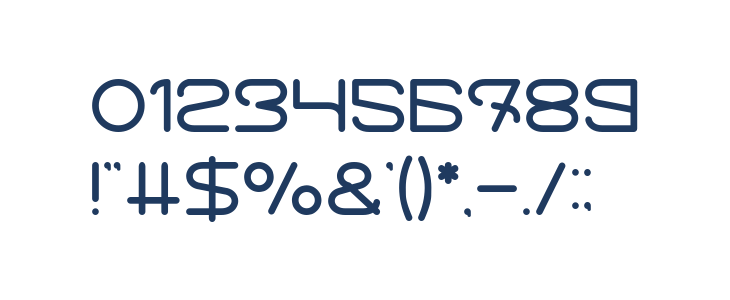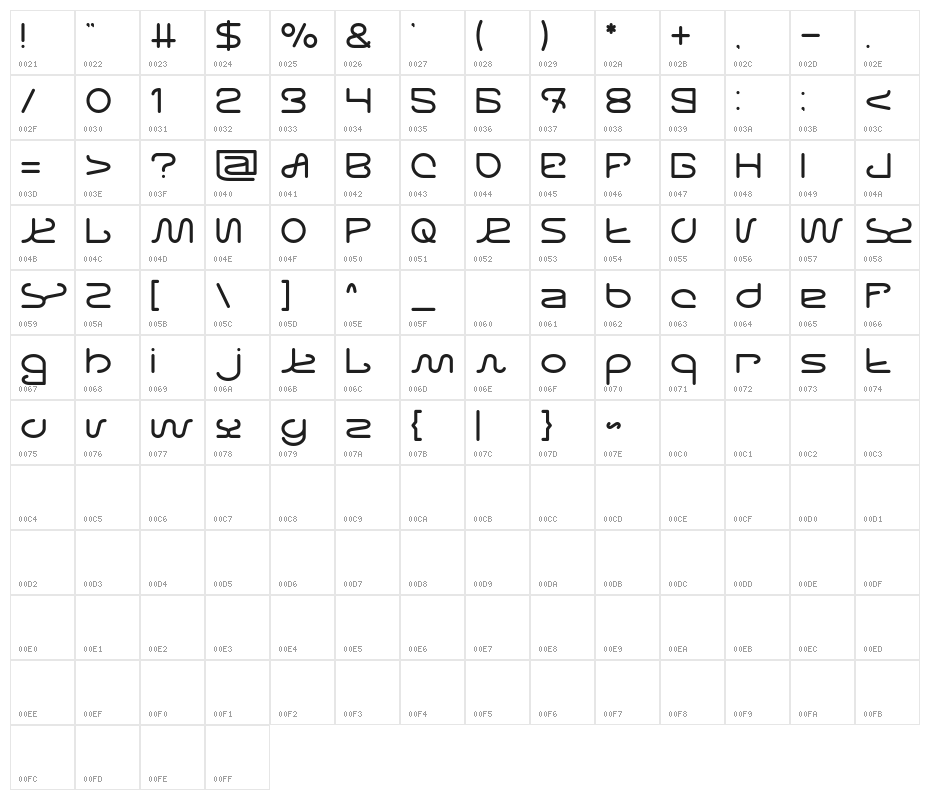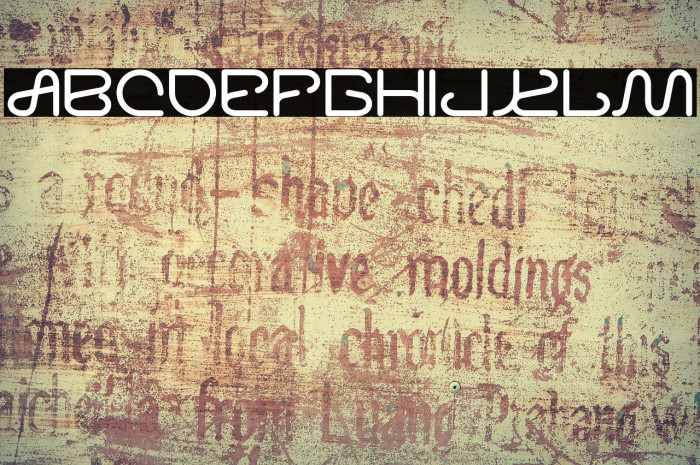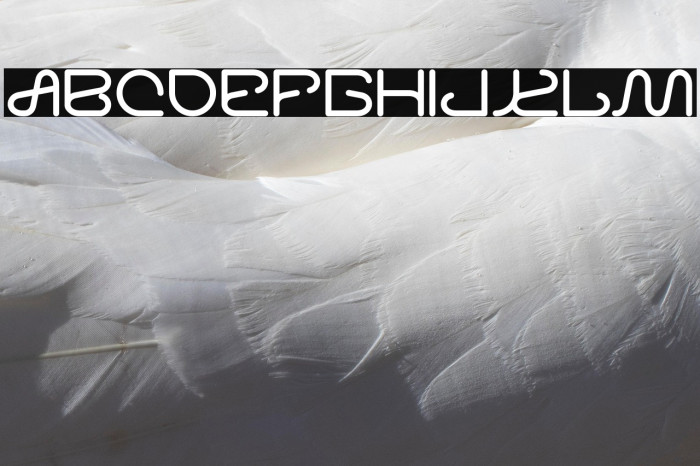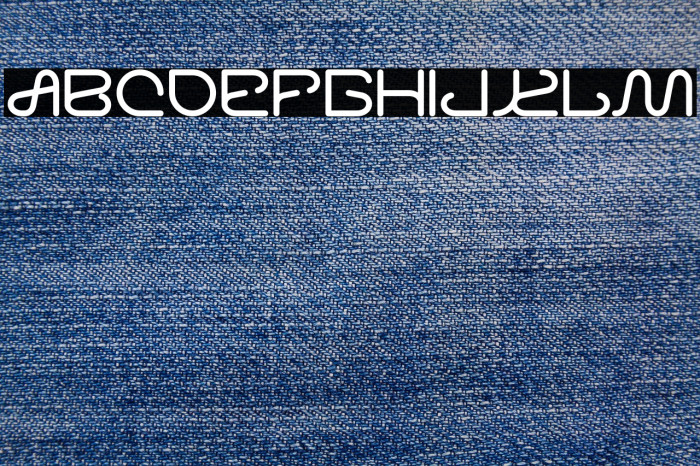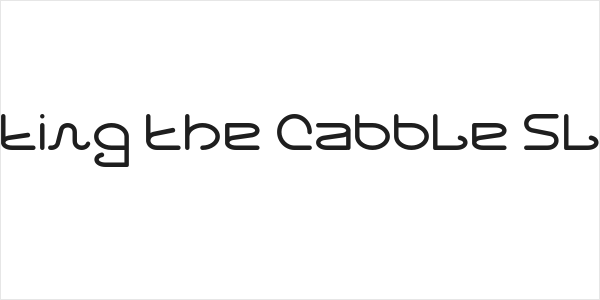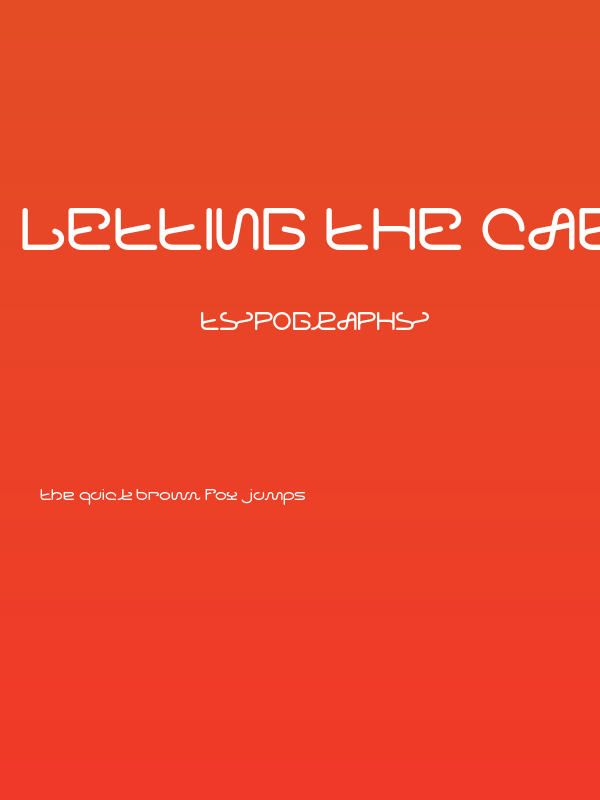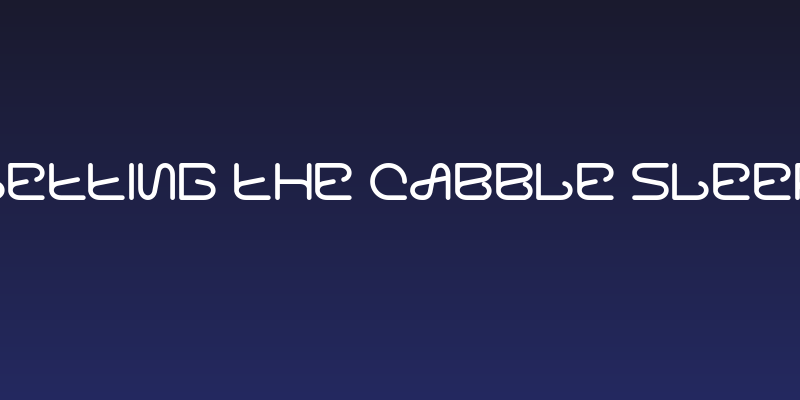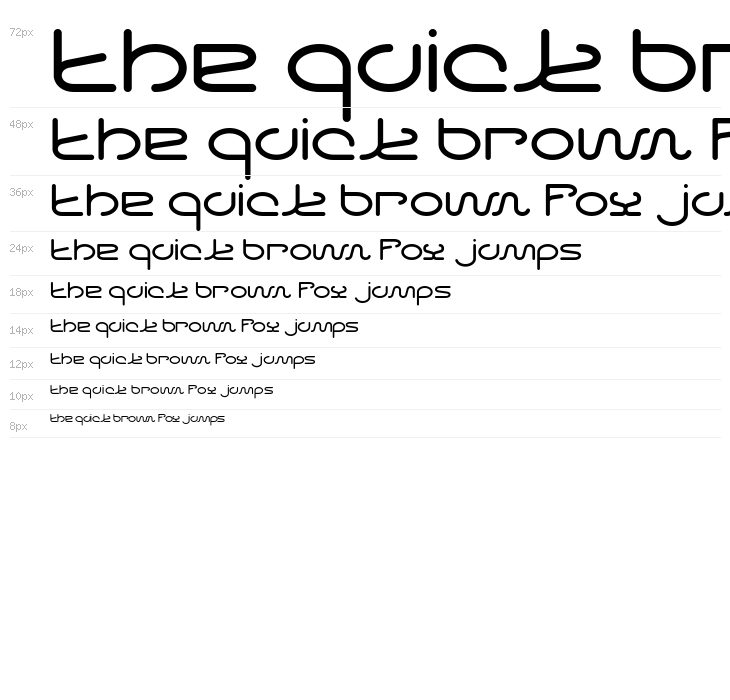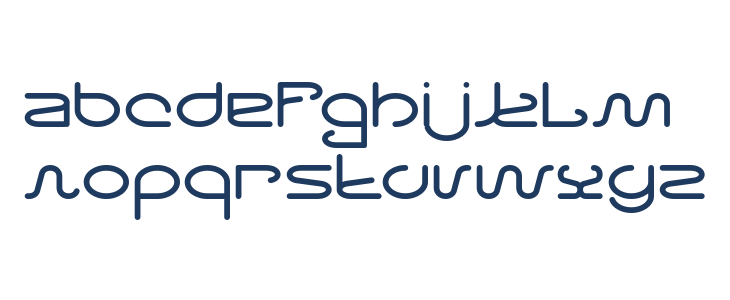
Letting The Cabble Sleep Font
Letting The Cabble Sleep Description
This font features a unique and playful design with rounded edges and a flowing, interconnected style. The characters are crafted with a consistent line weight, giving it a smooth and cohesive appearance. The uppercase and lowercase letters maintain a uniform height, creating a balanced look. Numbers and special characters follow the same design principles, ensuring harmony across all elements. The font's whimsical nature makes it stand out, while its readability remains intact despite its decorative style.
| Use Case | Logos, Posters, Invitations |
| Proposed Projects | Ideal for children's books, playful branding, creative posters, and whimsical invitations. |